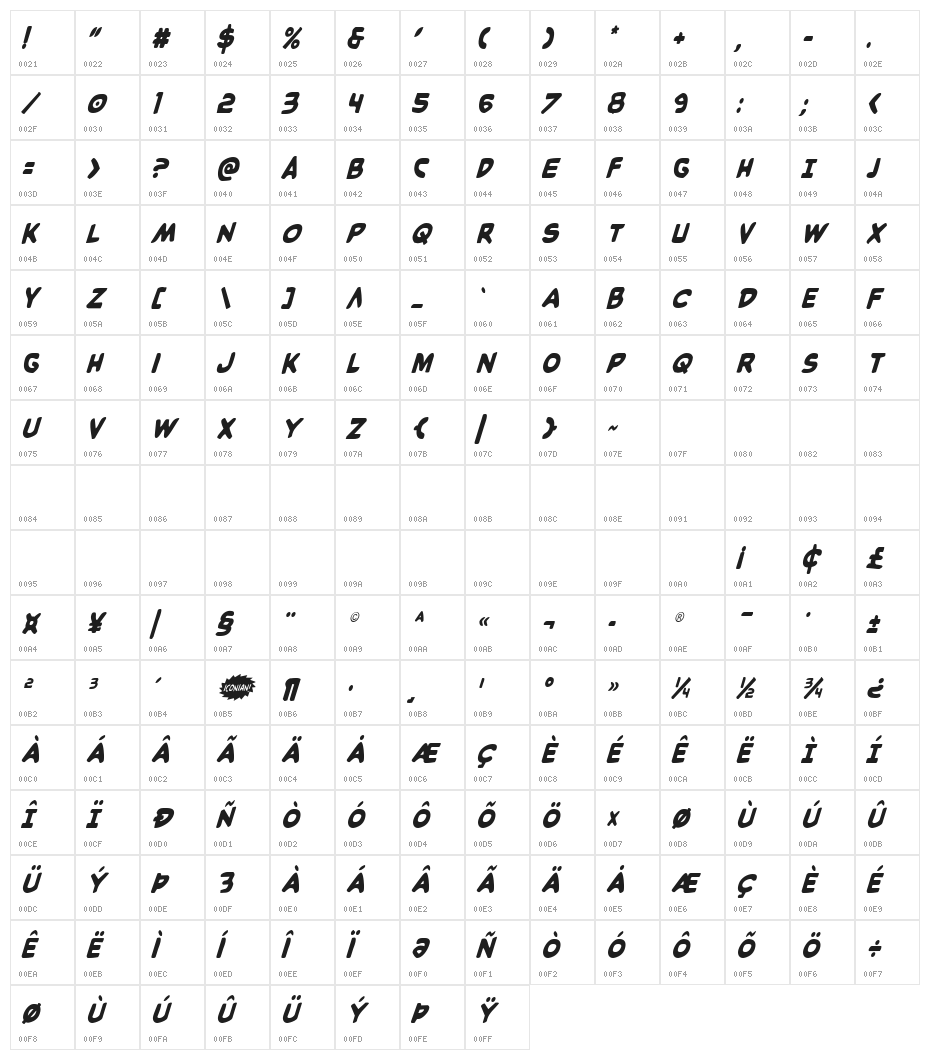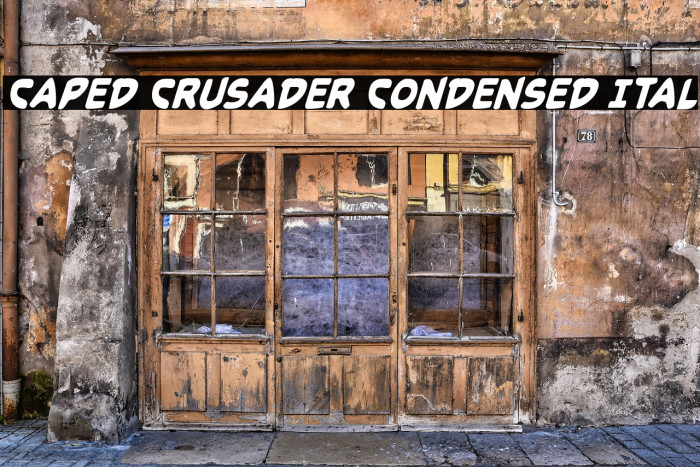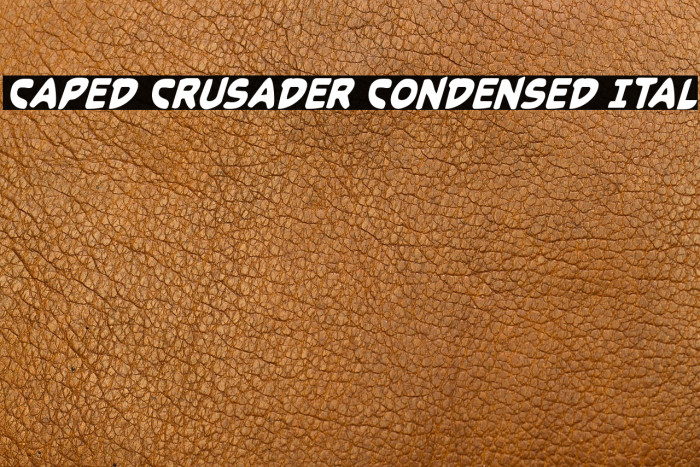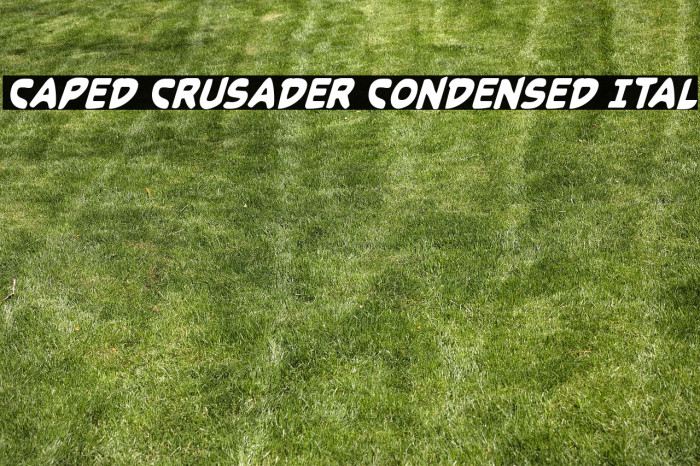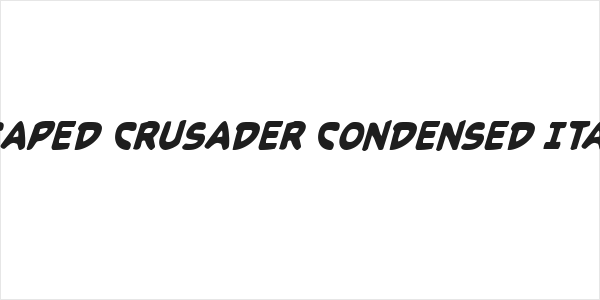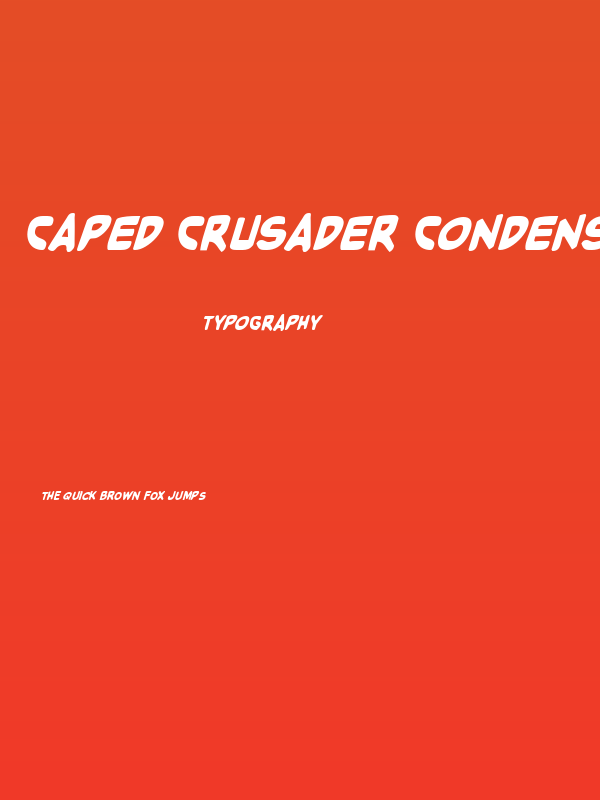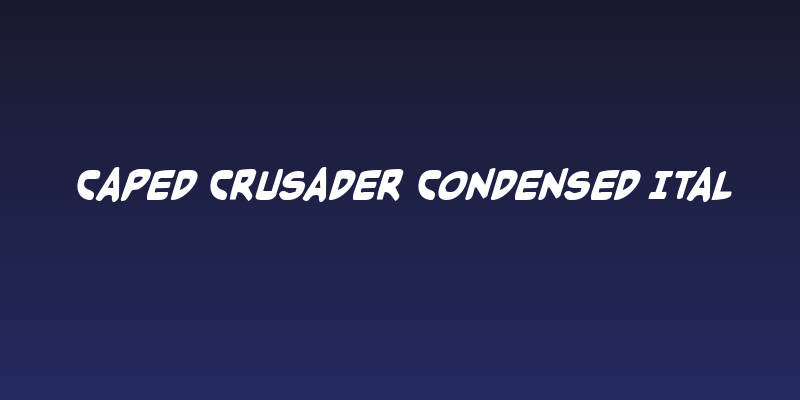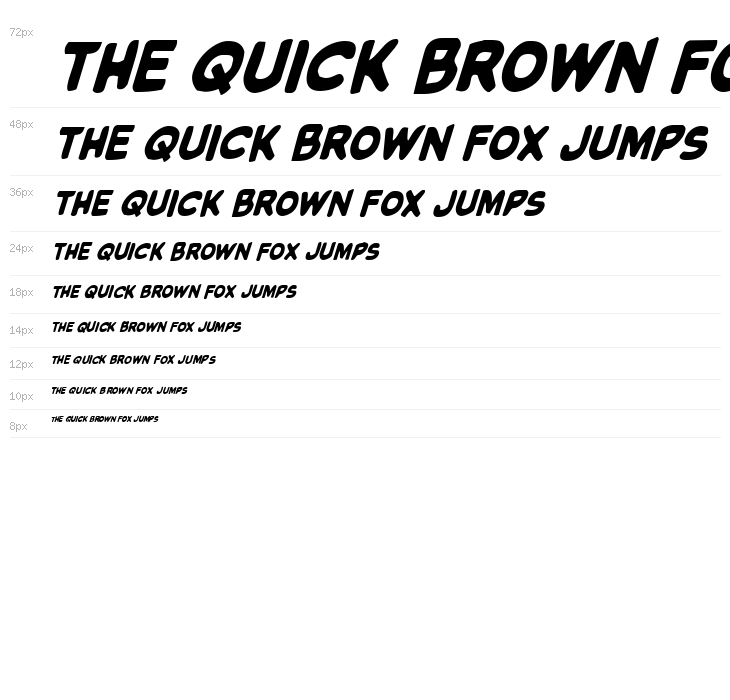
Caped Crusader Condensed Ital Font
Caped Crusader Condensed Ital Description
This font features a bold and dynamic style with a condensed and italicized appearance. The characters are slightly slanted, giving a sense of motion and energy. The strokes are thick and consistent, providing a strong visual impact. The overall design is modern and playful, making it suitable for attention-grabbing headlines or creative projects. The spacing between characters is tight, enhancing its compact look. The font includes a full set of uppercase and lowercase letters, numbers, and a variety of special characters, ensuring versatility in usage.
| Proposed Projects | Ideal for comic book titles, posters, logos, and any project requiring a bold and energetic typeface. |